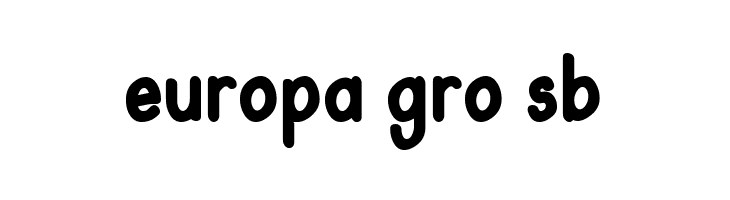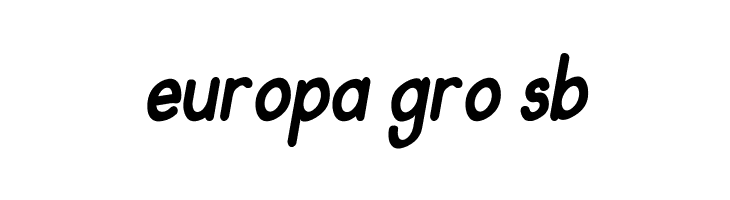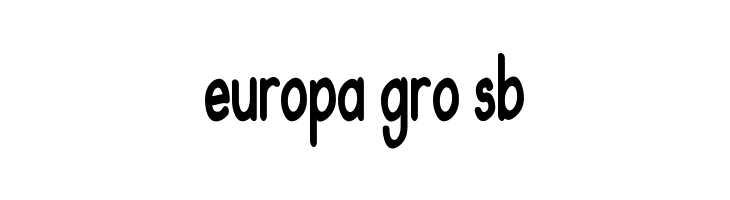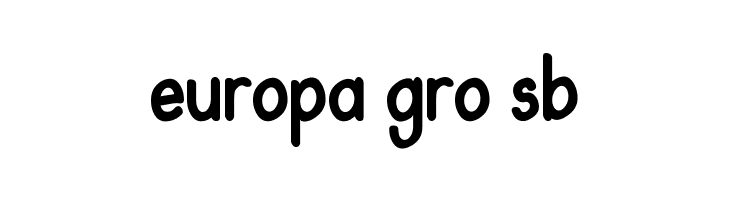
A playful, rounded font with smooth curves and a whimsical style.
A playful, bold font with rounded edges and a whimsical style.
A playful, rounded font with a light and airy feel, perfect for adding personality.
A playful, handwritten-style font with a casual, italicized appearance.
A playful, rounded font with smooth curves and a friendly appearance.
A playful, narrow font with rounded, whimsical letterforms.